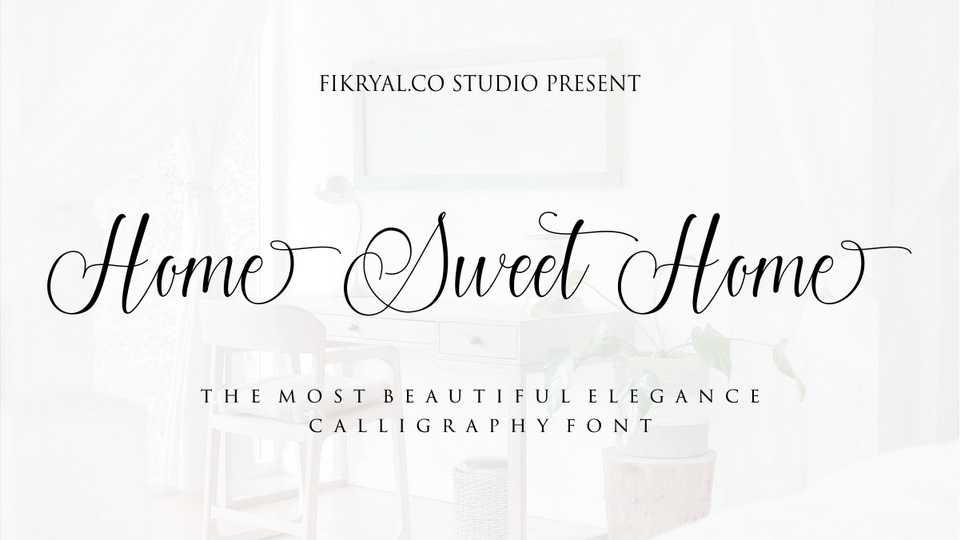
Download Home Sweet Home font a delicate, elegant and flowing handwritten typeface. It has beautiful and well balanced characters and as a result, it matches a wide pool of designs.
Designer: Fikry Alif